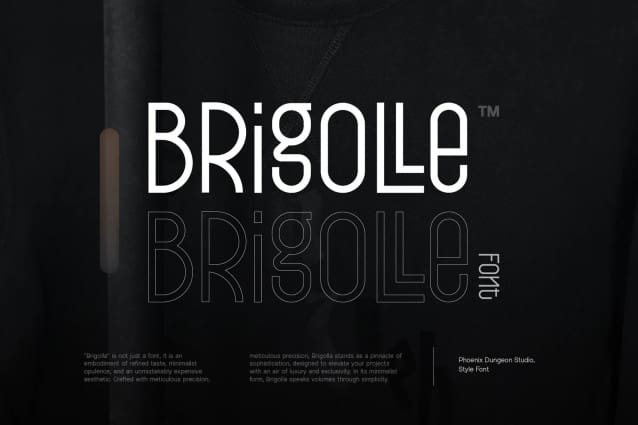
Brigolle Font
Brigolle Font is a stunningly beautiful font that combines minimalist design with an air of luxury and elegance. Its sleek, refined letterforms create a clean yet sophisticated aesthetic, perfect for high-end branding, beauty products, and luxury fashion editorials. With its graceful proportions and subtle details, Brigolle exudes an expensive, polished look that elevates any design. The minimalist approach enhances its timeless appeal, making it ideal for projects seeking a refined and exclusive feel. Brigolle captures the essence of understated elegance, making it the go-to choice for designs that demand both beauty and an expensive, high-class aesthetic.